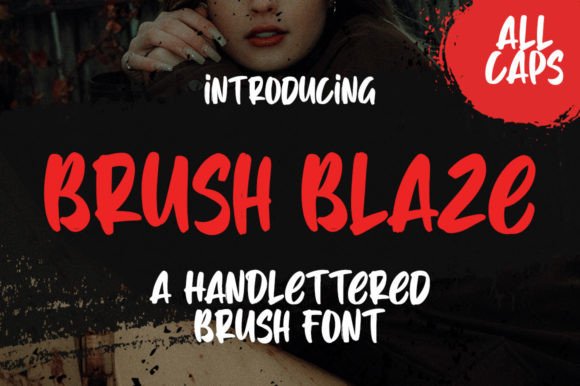
Introducing Brush Blaze Font: The Key to Unlocking Creative Expression
Immerse yourself in the world of Brush Blaze Font, a display font that captures the essence of creativity and style. With its natural texture, reminiscent of the strokes of a brush pen, Brush Blaze is the perfect companion for your creative endeavors.
Unleash your artistic spirit and let Brush Blaze elevate your designs to new heights. Whether you're crafting clothing, posters, book titles, or stationery, Brush Blaze adds a touch of uniqueness that sets your work apart. Its versatility extends to quotes, branding, logos, invitations, greeting cards, t-shirts, and packaging designs.
Brush Blaze isn't just a font; it's a gateway to creative exploration. It's the perfect tool for expressing yourself in a unique and captivating way. Its natural flow and authentic texture evoke a sense of artistry that draws your audience in and leaves a lasting impression.
So, why settle for ordinary fonts when you can embrace the extraordinary with Brush Blaze? Experience the synergy of creativity and innovation as Brush Blaze transforms your designs into masterpieces. Let your imagination run wild and paint the world with your unique artistic vision.
Embrace Brush Blaze Font today and unlock the boundless possibilities of artistic expression.